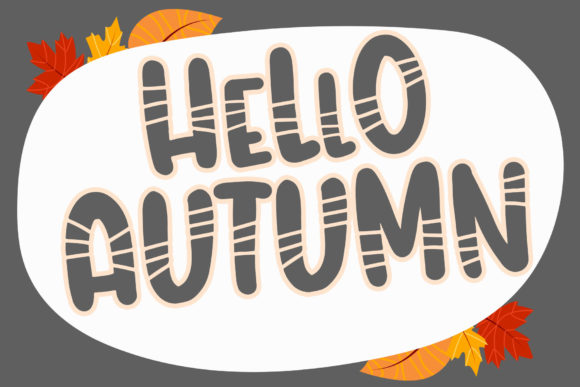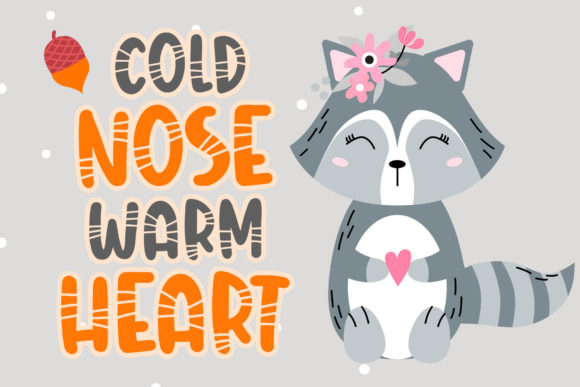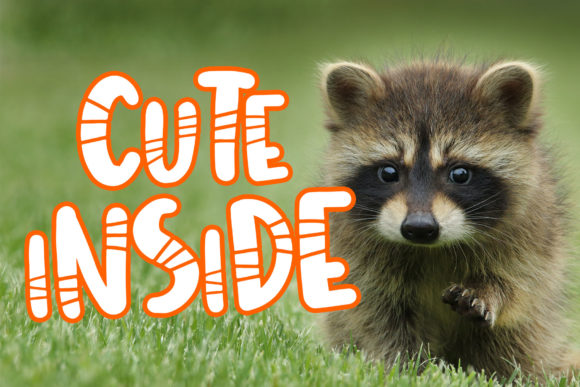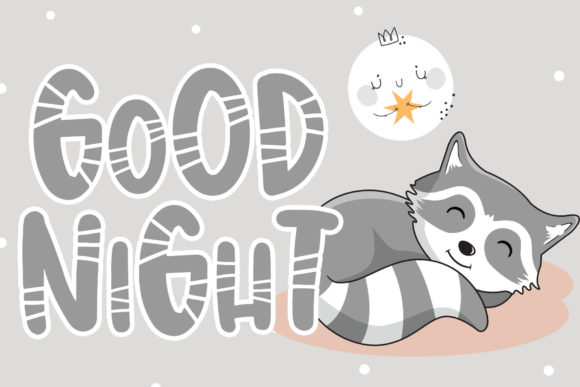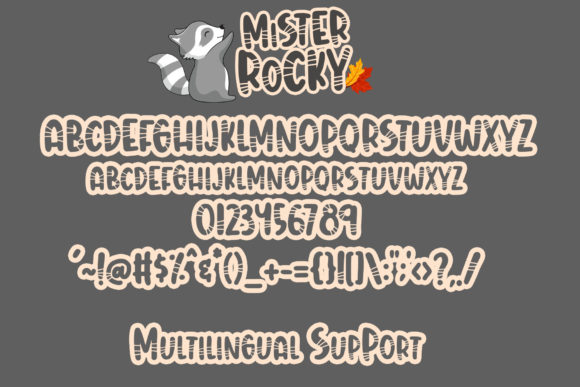
Introduction to Mister Rocky Font
Mister Rocky is a cute and quirky display font.
It will add an incredibly joyful touch to your designs Add this beautiful display font to each of your creative ideas and notice how it makes them stand out.
Key Features of Mister Rocky Font